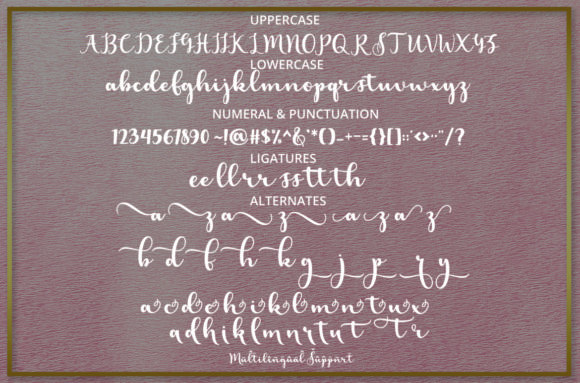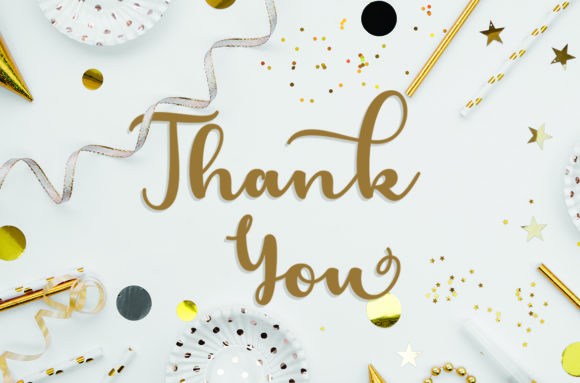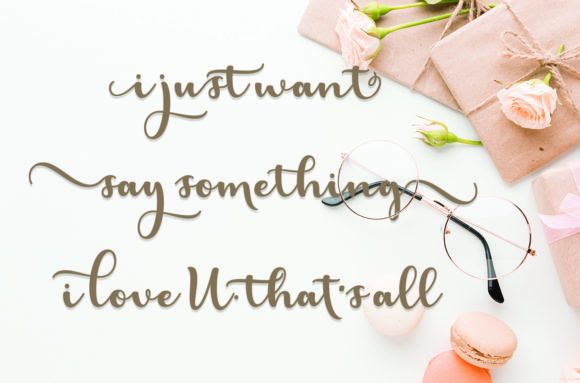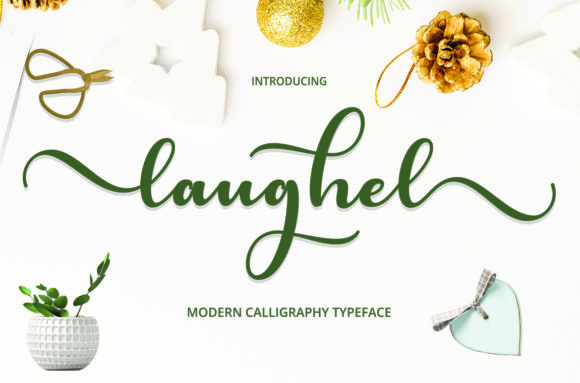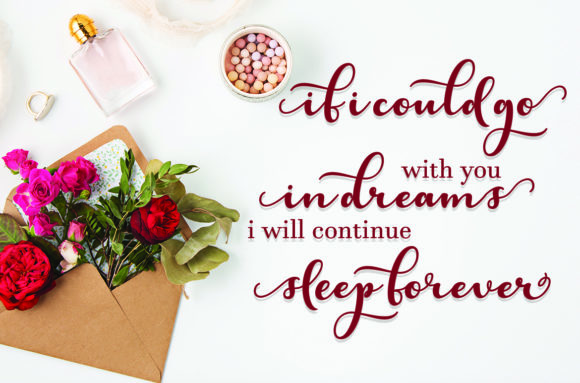
About Laughel Font
Laughel is a casual and friendly handwritten font that brings a sense of warmth and approachability to any design. With its relaxed and natural style, Laughel is versatile and looks outstanding in various contexts. Whether it’s used on busy backgrounds or as a standalone headline, this font adds a charming touch to your projects.
The casual nature of Laughel makes it perfect for creating a laid-back and friendly atmosphere. It exudes a sense of authenticity and informality, making it ideal for designs that require a personal and approachable feel. From social media graphics and website headers to product packaging and promotional materials, Laughel adds a touch of friendliness and charm to your visual communication.
One of the strengths of Laughel is its readability. Its clean and legible letterforms ensure that your message is easily understood, even in small sizes or when used on complex backgrounds. The consistency and balance of the strokes make it a versatile choice for headlines, titles, and other prominent text elements. Whether you’re designing a poster, flyer, or digital content, Laughel will make your text stand out with its unique personality.
Laughel is a font that adapts well to different design styles and projects. Its friendly and approachable nature works in harmony with a variety of themes, from casual and fun to lighthearted and whimsical. Use it to add a touch of personality to greeting cards, invitations, quotes, branding materials, and more.
With its outstanding presence, Laughel ensures that your designs are visually appealing and engaging. Its versatility allows it to shine in various design applications, making it a reliable choice for adding a touch of informality and friendliness to your projects.
Incorporate Laughel into your designs and experience the charm and approachability it brings. Whether you’re working on a busy background or need a standout headline, this casual and friendly handwritten font will make your designs shine with its outstanding style.